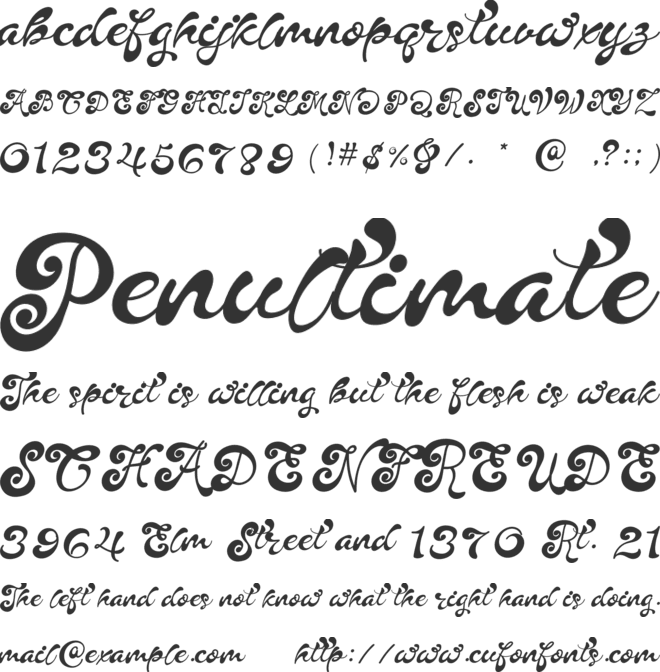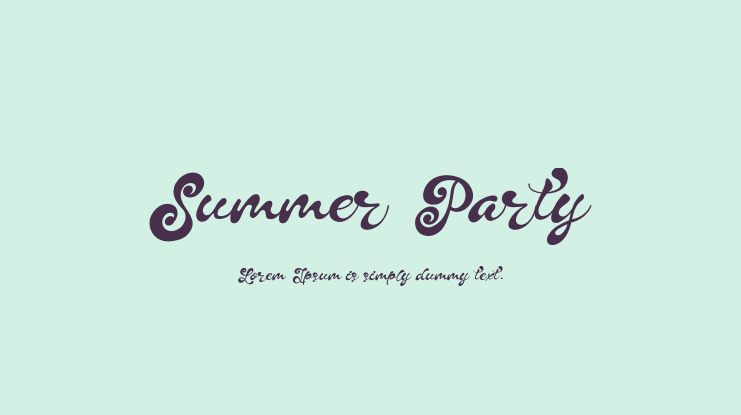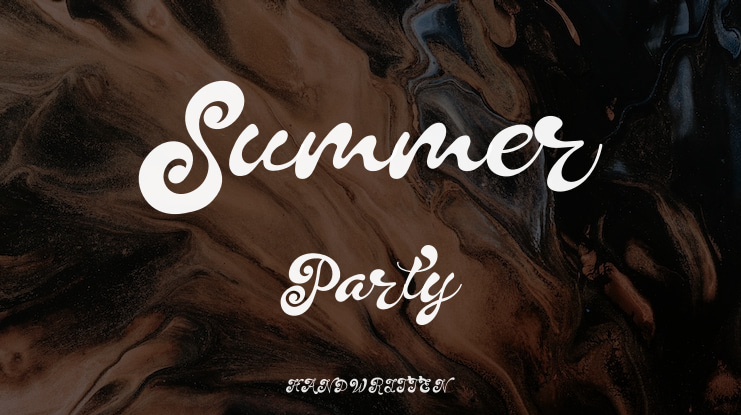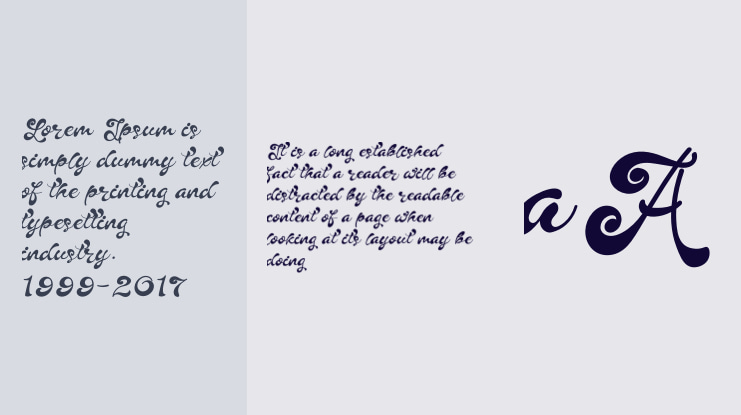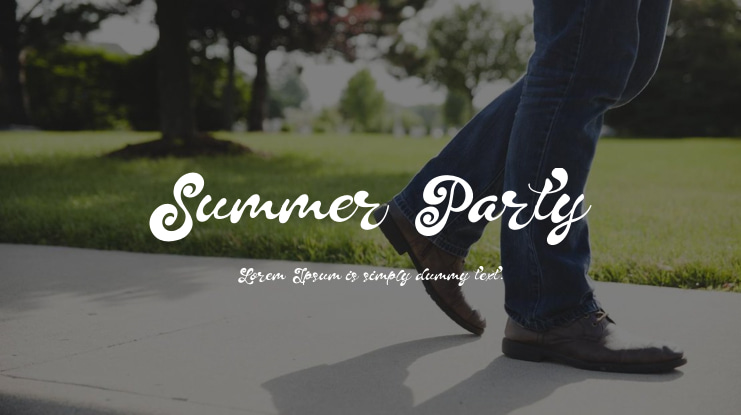
The Summer Party font is a whimsical, romantic, and chic handwritten font that is PUA encoded, allowing you to easily access all the amazing glyphs and ligatures. Fall in love with its versatile style and use it to create stunning designs!